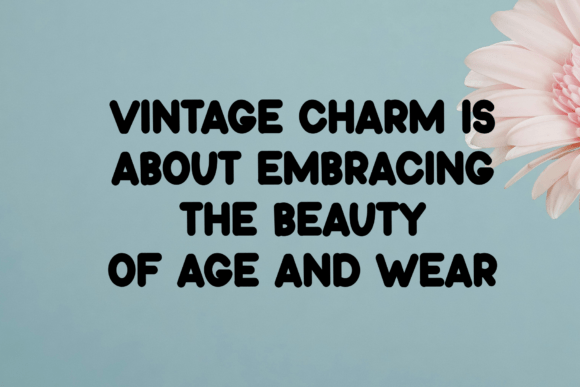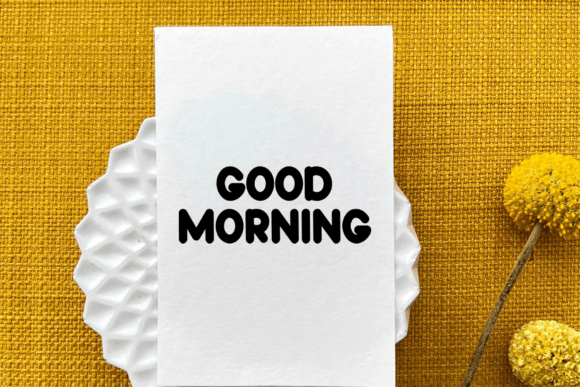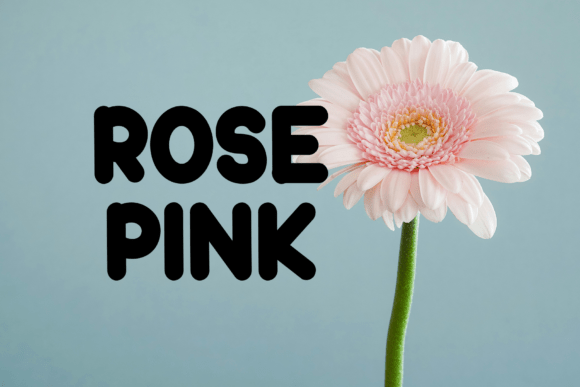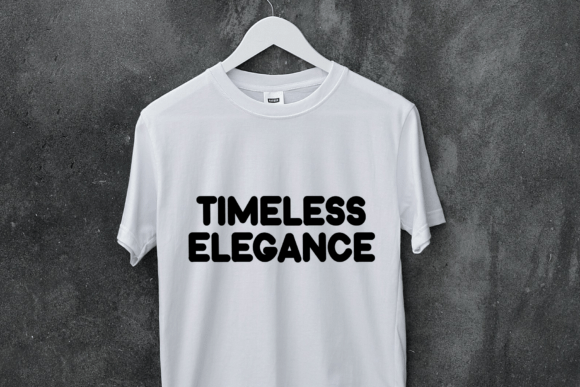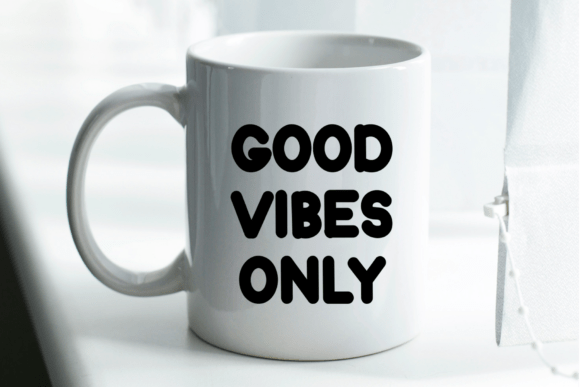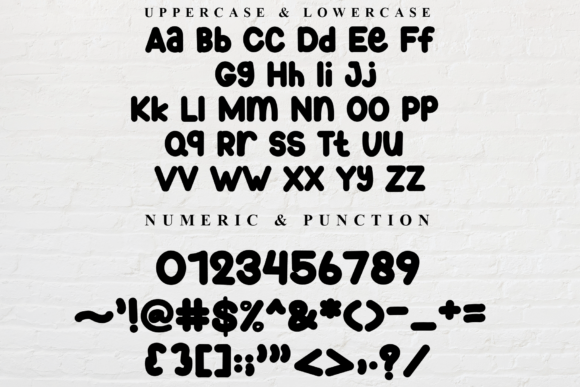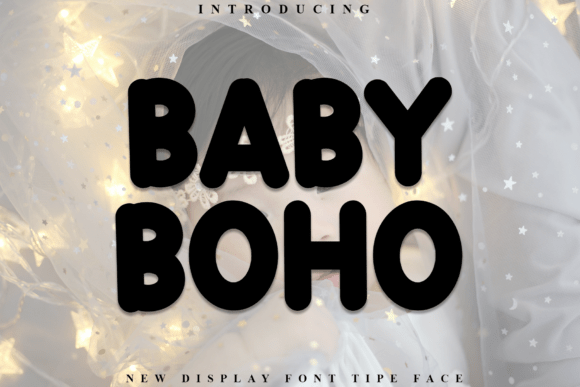
Baby Boho Font: Add a Touch of Whimsy to Your Holiday Designs
The holiday season is upon us, and with it comes the desire to create festive and merry designs that capture the spirit of the season. If you’re a designer or crafter looking for a unique and enchanting typeface to add to your projects, look no further than the Baby Boho Font. This delightful font is perfect for greeting cards, gift tags, and holiday-themed projects, bringing a cheerful and nostalgic ambiance to your words.
The Charm of Baby Boho Font
Baby Boho Font is a decorative typeface that embodies the magic of the holiday season. Its whimsical flair and decorative elements make it an ideal choice for designers and crafters who want to add a touch of enchantment to their work. With its festive and merry vibe, this font is sure to bring a smile to anyone’s face. Whether you’re creating holiday greeting cards, gift tags, or festive decorations, Baby Boho Font is the perfect choice to make your designs shine.
Key Features of Baby Boho Font
- Festive and Merry: Baby Boho Font is designed to capture the spirit of the holiday season, making it perfect for festive and merry designs.
- Decorative Elements: This font features decorative elements that add a touch of whimsy and enchantment to your designs.
- Whimsical Flair: Baby Boho Font has a playful and whimsical flair that makes it perfect for holiday-themed projects.
Baby Boho Font is an ideal choice for designers and crafters who want to create unique and festive designs. Whether you’re creating holiday greeting cards, gift tags, or festive decorations, this font is sure to bring a touch of magic to your work. With its easy-to-use glyphs and ligatures, you can create stunning designs that will leave a lasting impression.
Tips for Using Baby Boho Font
- Pair with Other Fonts: Pair Baby Boho Font with other complementary fonts to create a unique and eye-catching design.
- Use for Headings and Titles: Use Baby Boho Font for headings and titles to add a touch of whimsy and festivity to your designs.
- Get Creative: Don’t be afraid to get creative and try new things with Baby Boho Font. Its versatility makes it perfect for a wide range of design projects.
Why Choose Baby Boho Font?
There are many reasons why Baby Boho Font stands out from the crowd. Here are just a few:
- Unique and Enchanting: Baby Boho Font is a unique and enchanting typeface that will add a touch of magic to your designs.
- Festive and Merry: Baby Boho Font is designed to capture the spirit of the holiday season, making it perfect for festive and merry designs.
In conclusion, Baby Boho Font is a must-have for designers and crafters who want to add a touch of whimsy and enchantment to their holiday designs. With its festive and merry vibe, decorative elements, and whimsical flair, this font is perfect for holiday-themed projects. Whether you’re creating greeting cards, gift tags, or festive decorations, Baby Boho Font is sure to bring a smile to anyone’s face. So why wait? Get your hands on Baby Boho Font today and let your typography shine with the magic of this beautiful font!